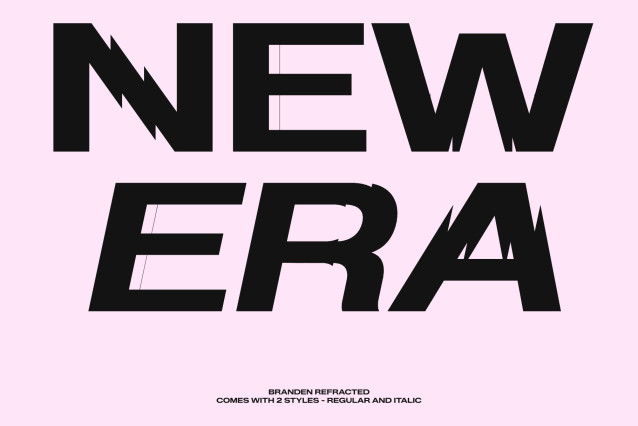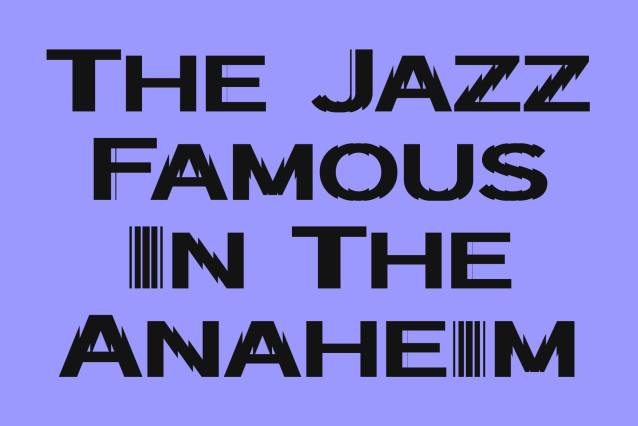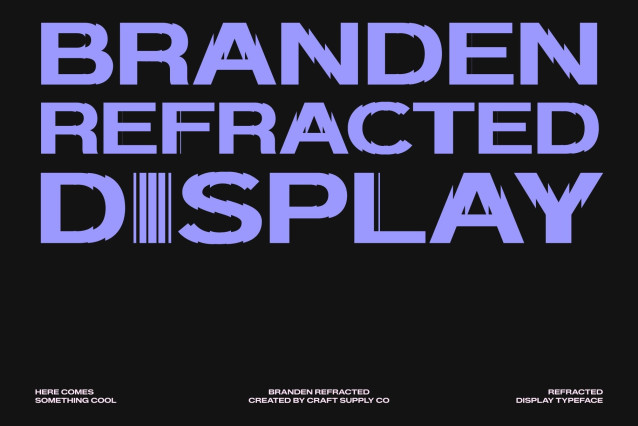
Branden Refracted Font
Branden Refracted – Casual Sans Serif Font: Where Simplicity Meets Futuristic Distortion
Modern Casual Structure with Strong Personality
This is a modern casual sans serif font family designed to express business-like simplicity while injecting a bold experimental edge. Built with low stroke contrast and slightly squarish rounded shapes, this typeface feels clean, approachable, and highly readable.
Refracted Cuts for Futuristic Visual Impact
What makes this font truly stand out is its glitch-like light refraction effect. Each character appears sliced, fragmented, and intersected with geometric cuts that simulate light splitting through glass. This creates a dynamic futuristic vibe that immediately attracts attention and energizes layouts. The refracted details add movement and depth, making text feel alive and technologically inspired.